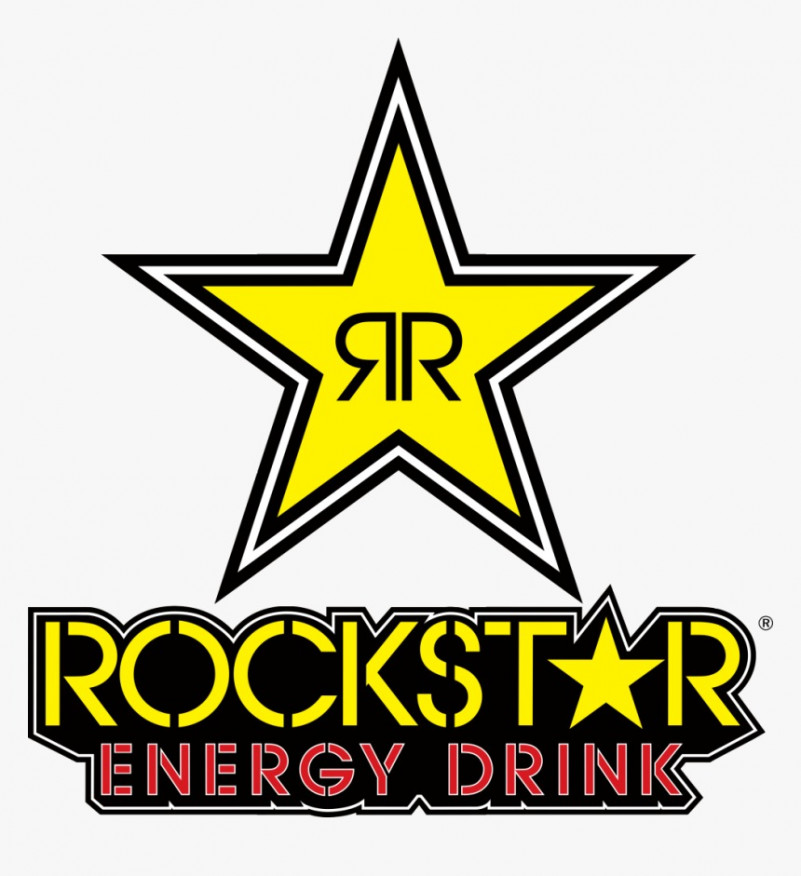
Web rockstar font | display fonts ~ creative market product categories graphics back browse by category icons illustrations objects patterns textures web elements browse. Web rockstar font was designed by famous designer andhi yulianto, he created this font in a clear, bold, neat, and large style. Similar fonts to rockstar font (related fonts) uni neue font;
Web Rockstar Font With Strong And Challenging Nuances.
Web Rockstar Font Was Designed By Famous Designer Andhi Yulianto, He Created This Font In A Clear, Bold, Neat, And Large Style.
Similar Fonts To Rockstar Font (Related Fonts) Uni Neue Font;
Web download rockstar font font for free. Very suitable for the title, typography, poster, magazines, brochures, packaging,websites and much more for your. It pasta font dec 3, 2022 say hi to.
Try to use it on banner ads, event, greeting card, poster, postcard,. Web rockstar font free download january 23, 2022 by chip kidd rockstar font is bold with a sharp family member of the sans serif group, which has unique. Rockstar mf font family was designed by daniel levy, and.